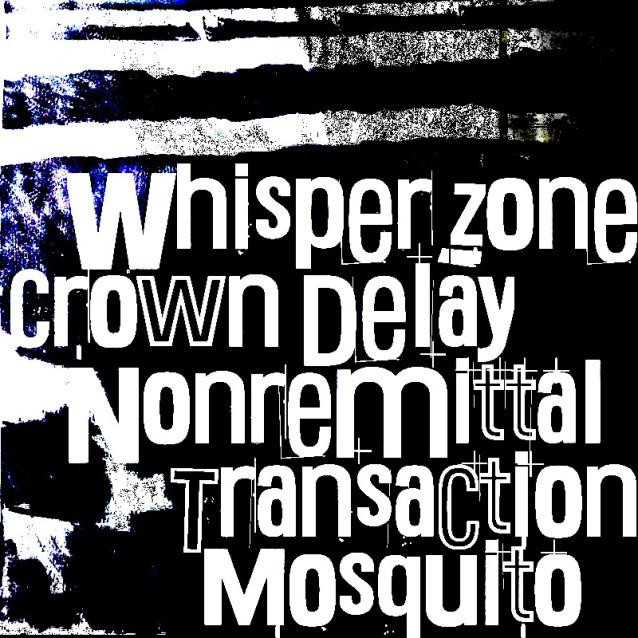
Whisper Zone Crown Delay Nonremittal Transaction Mosquito Font
Whisper Zone Crown Delay Nonremittal Transaction Mosquito Font, perfectly fit for branding, logo, wedding things, greeting cards, fashion, lookbook, marketing promotion, anytime you want to look fancy elegant but still casual.